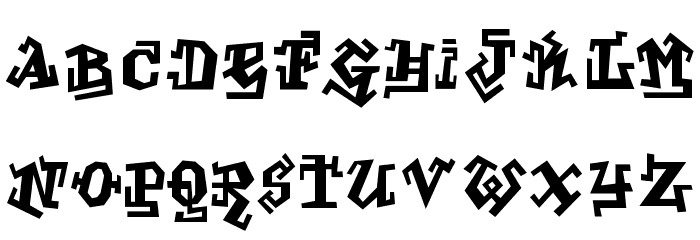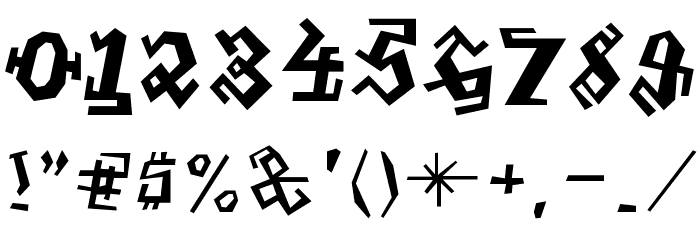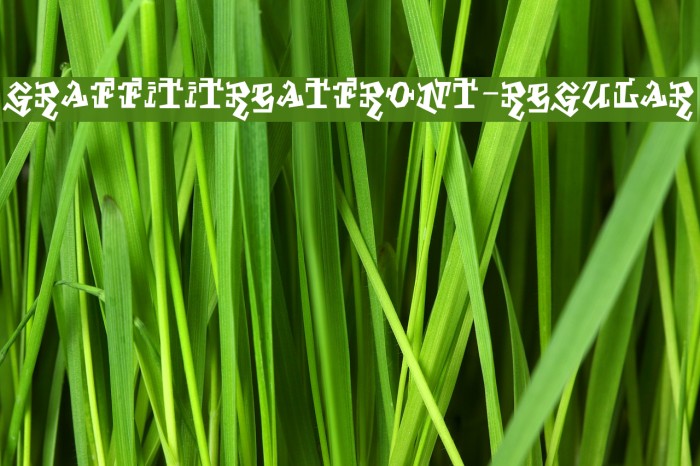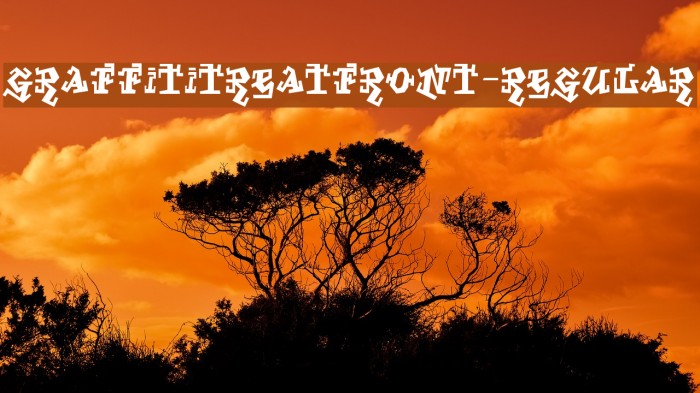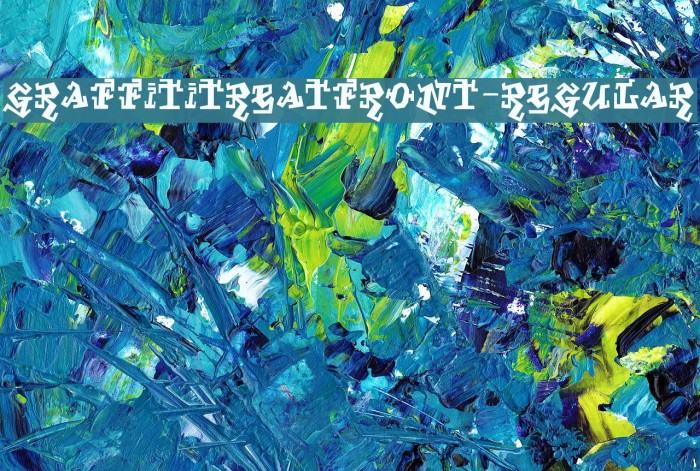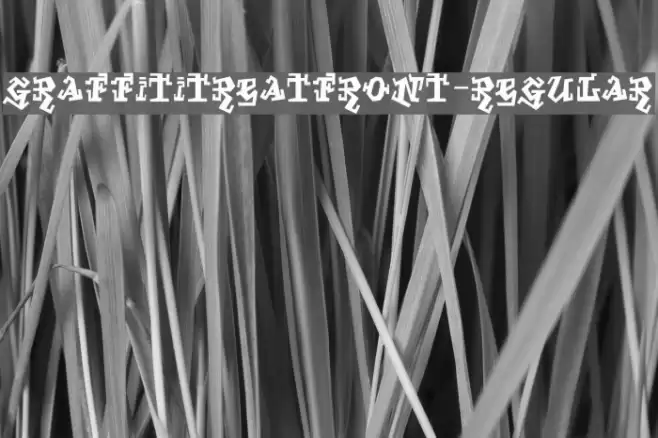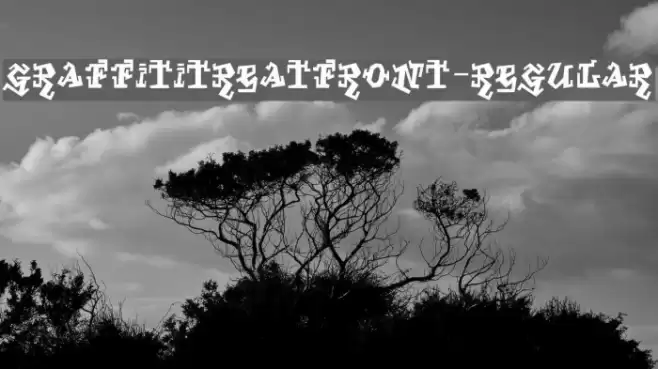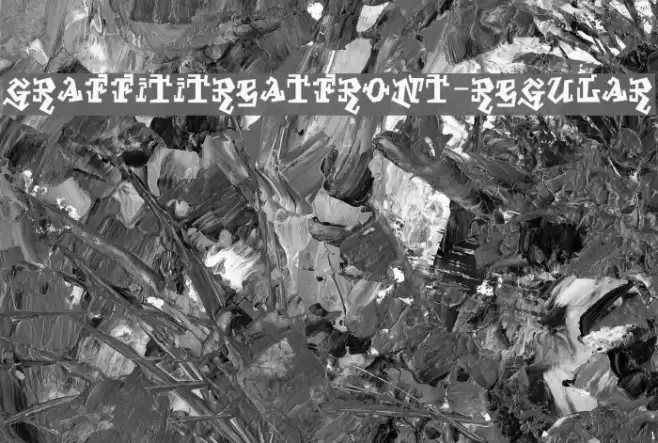
GraffitiTreatFront-Regular Font
This font exhibits a bold and edgy style, reminiscent of urban graffiti art. The characters are designed with sharp angles and exaggerated forms, giving them a dynamic and energetic appearance. The uppercase and lowercase letters maintain a consistent theme, with each character displaying a unique twist or slant that adds to the overall aesthetic. The numbers and special characters follow suit, ensuring a cohesive look across all glyphs. The font's boldness and distinctive style make it stand out, capturing attention with its street art-inspired design.
A bold, graffiti-inspired font with sharp angles and dynamic forms.
- Proposed Projects: Ideal for street art projects, urban-themed posters, music album covers, and edgy branding materials.
- Overall Style: Modern, Urban